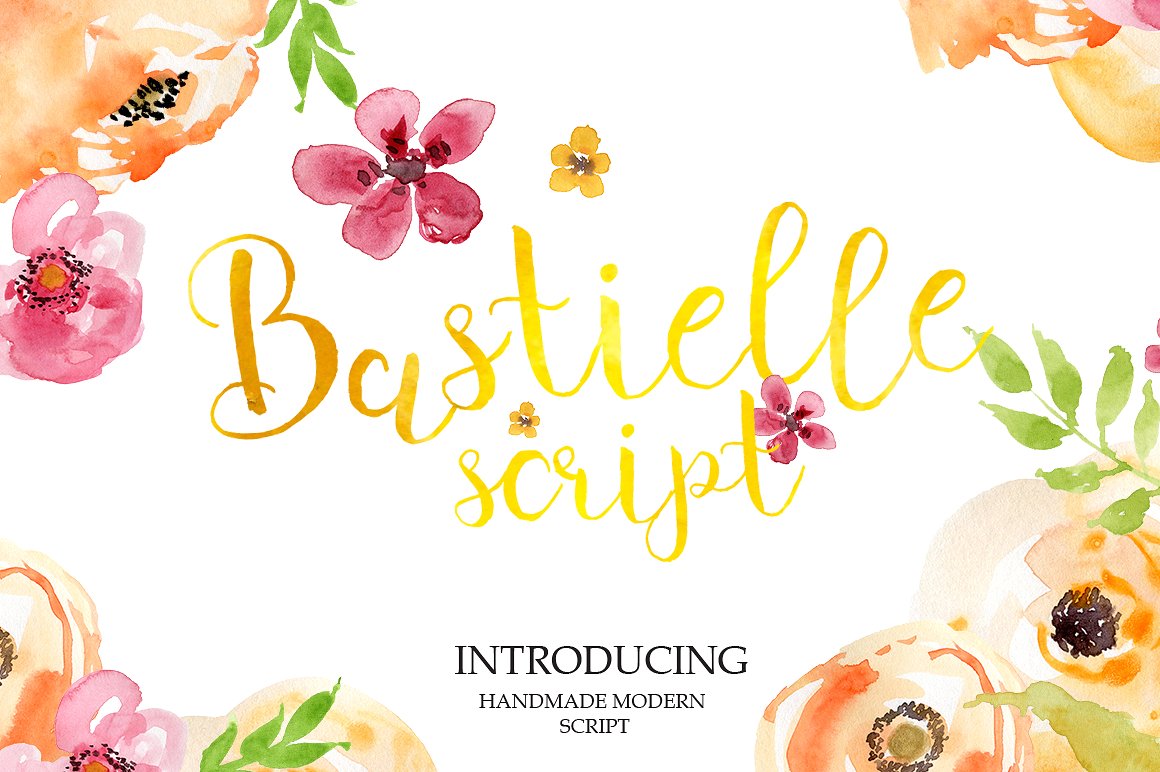
Bastielle Script Font
Bastielle is a beautiful thin handwritten font. It looks like it has been created with a tiny brush or pencil and is great for adding elegant decorations to your designs. Looks great on wedding invites, birthday cards, nursery decorations and more.